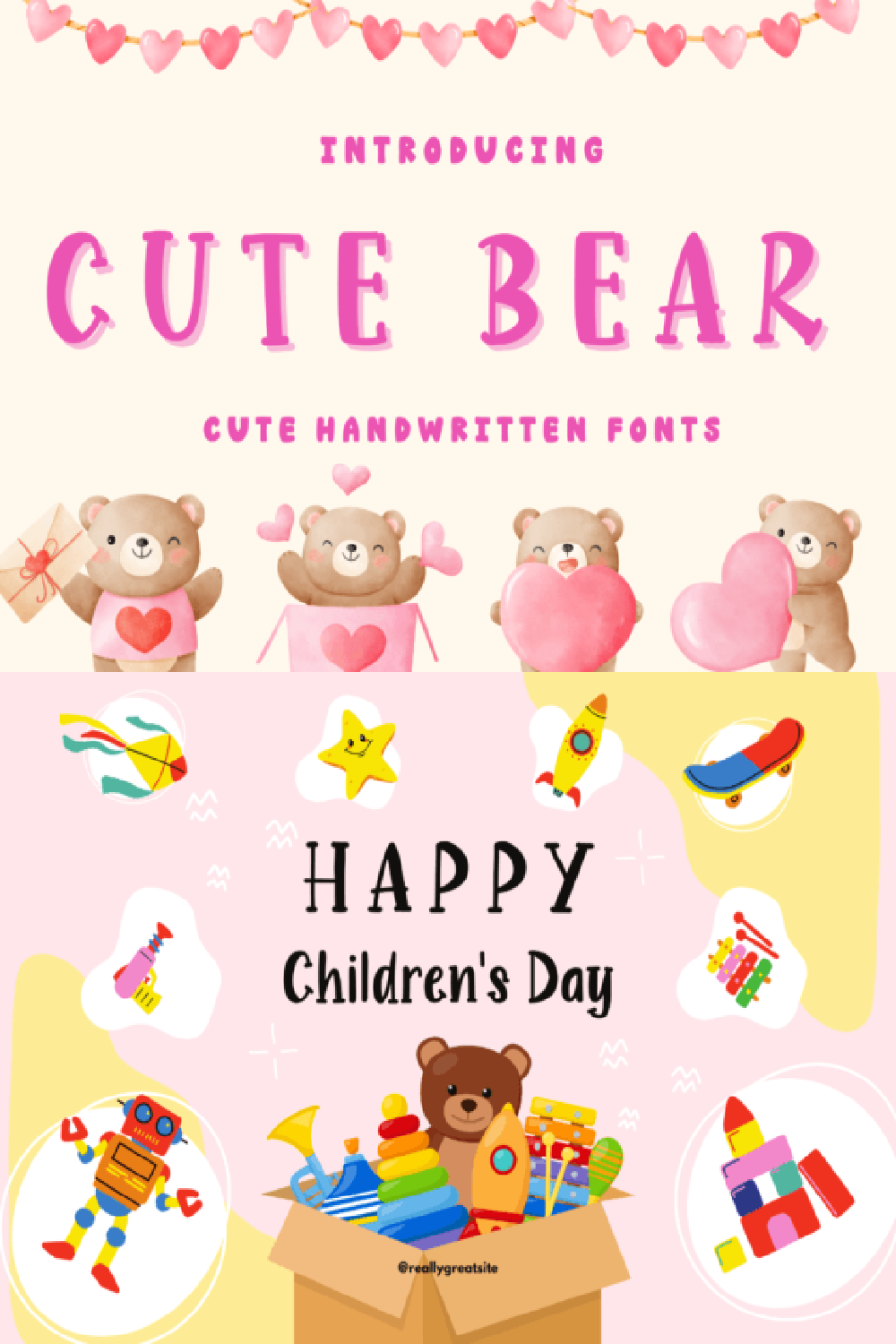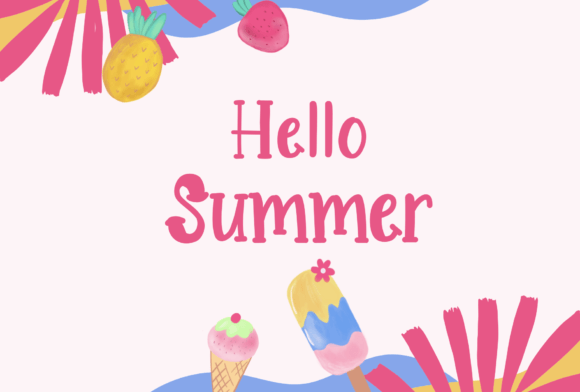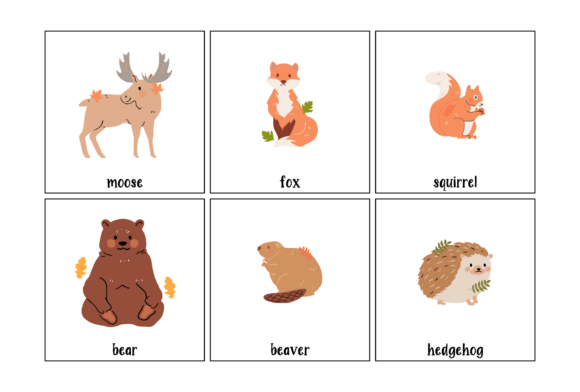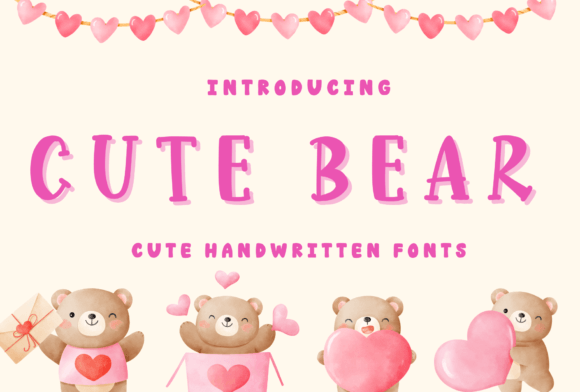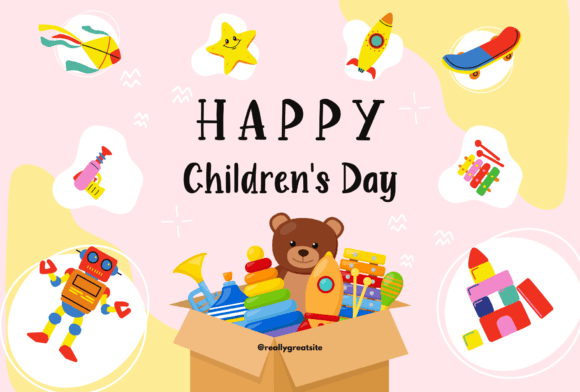
Cute Bear Font: A Playful Handwritten Font for Crafts & Cricut
About the Cute Bear Font
Explore the possibilities with Cute Bear Font, a font that offers both beauty and functionality. Discover ‘Cute Bear’, a delightful, playful handwritten font that breathes life into your designs! The charm and whimsy of the font make it a hit for greeting cards, be it birthdays, Valentine’s Day, Mother’s Day, or Christmas – it adds a sweet, personal touch. ‘Cute Bear’ also enhances everyday items like planners, keychains, mugs, pillows, and t-shirts, turning them from ordinary into irresistable statement pieces. Embrace the captivating allure of ‘Cute Bear’ – a font that is as vibrant and fun-loving as its namesake creature.
Cute Bear Font Usage Examples